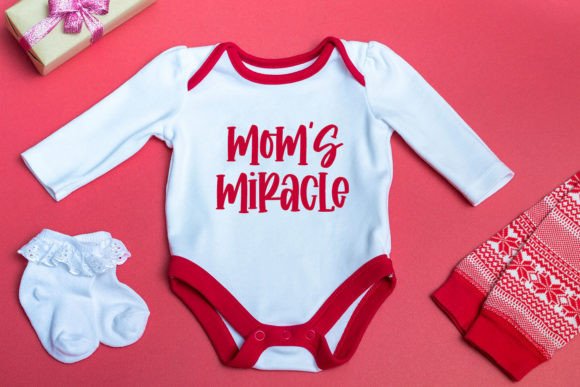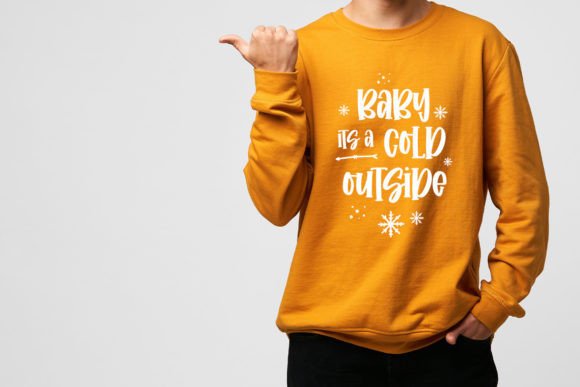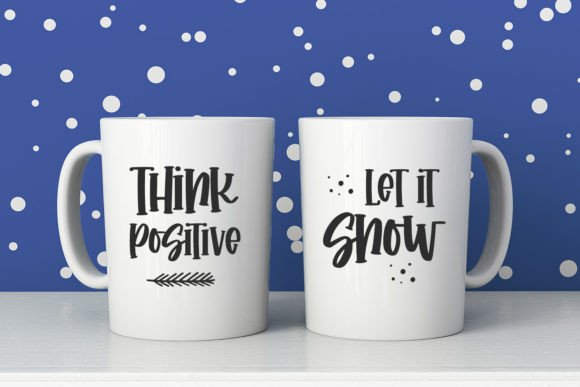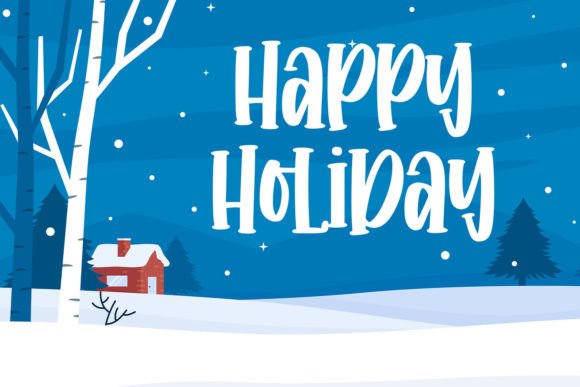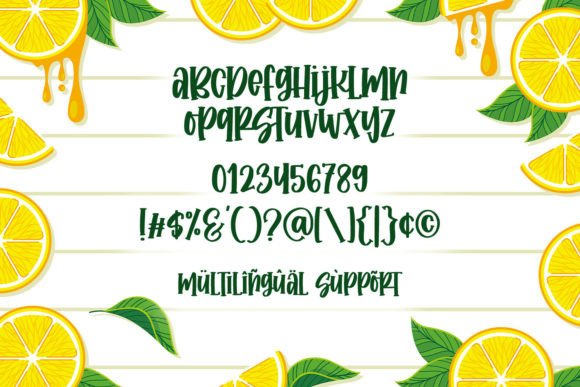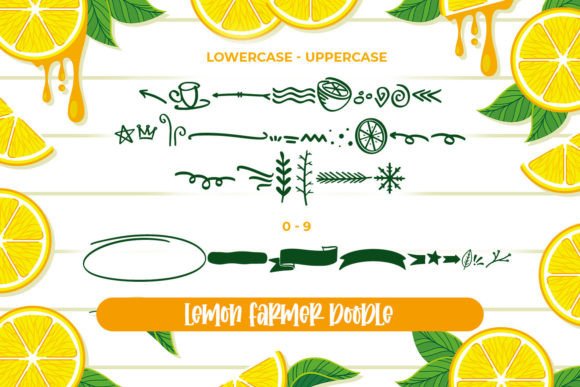
Introduction to Lemon Farmer Font
Lemon Farmer is a sweet and playful handwritten font that conveys impeccable friendliness.
Masterfully designed to become a true favorite, this font has the potential to bring each of your creative ideas to the highest level This font is PUA encoded which means you can access all the glyphs and ligatures with ease.
Key Features of Lemon Farmer Font
Why Choose Lemon Farmer Font?
Lemon Farmer Font offers exceptional quality and versatility, making it a valuable addition to your design toolkit. Whether you’re creating for personal projects or commercial use, Lemon Farmer Font delivers professional results.